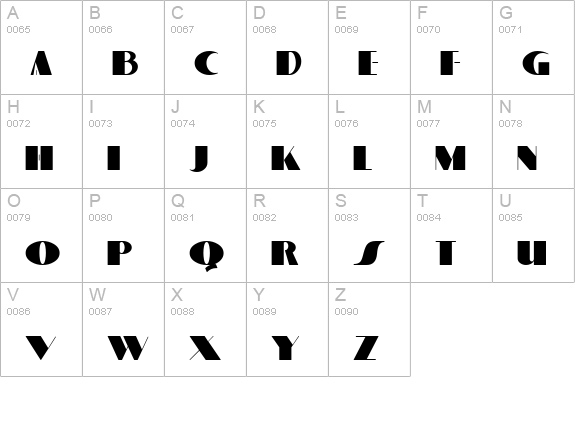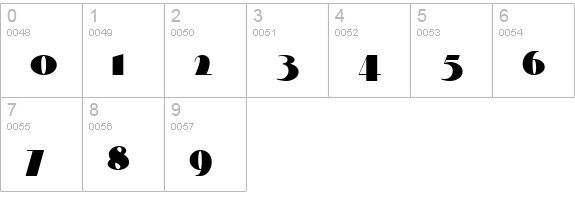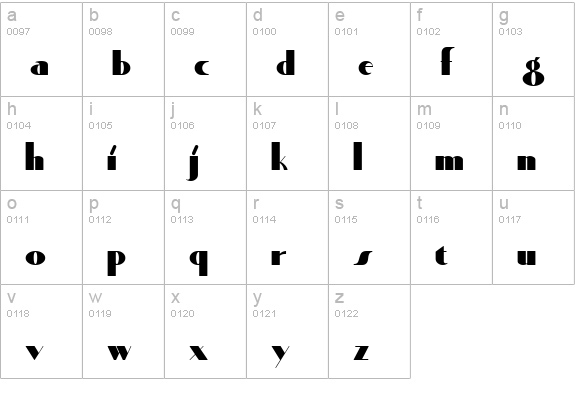
Quaint Notions NF Font Details
Introducing Quaint Notions NF font, a charming and delightful typeface that will transport you to a world of nostalgia and whimsy. This font is the perfect companion for any project that requires a touch of elegance and a hint of vintage flair. Quaint Notions NF is meticulously crafted with intricate details, showcasing the delicate strokes and graceful curves that make it truly unique. Its timeless design is inspired by the calligraphy of yesteryears, evoking a sense of elegance and sophistication that is sure to captivate your audience. With its versatile nature, Quaint Notions NF is suitable for a wide range of creative endeavors. Whether you're designing wedding invitations, logos, packaging, or even crafting personalized stationery, this font will effortlessly elevate your creations to new heights. One of the most remarkable aspects of Quaint Notions NF is that it is freely available to download at FontsMarket.com. Yes, you read that right! This font is not only exquisite but also accessible to all. FontsMarket.com offers a vast collection of fonts for designers and enthusiasts alike, and Quaint Notions NF is just one of the many gems waiting to be discovered. So why wait? Unleash your creativity and add a touch of elegance to your designs with Quaint Notions NF font. Download it for free at FontsMarket.com and embark on a journey of imagination and inspiration. Let this exceptional font be the cornerstone of your artistic endeavors, leaving a lasting impression on all who encounter your creations.